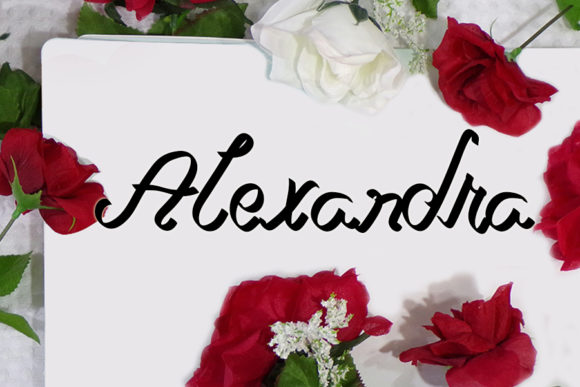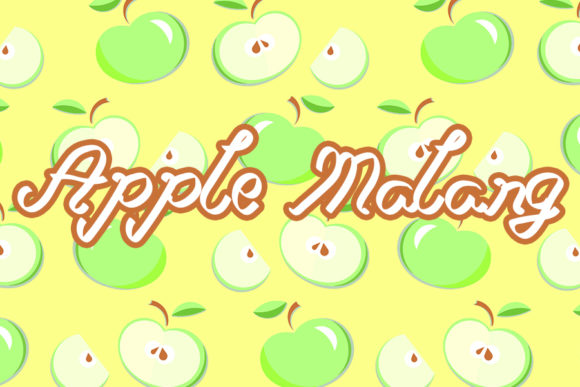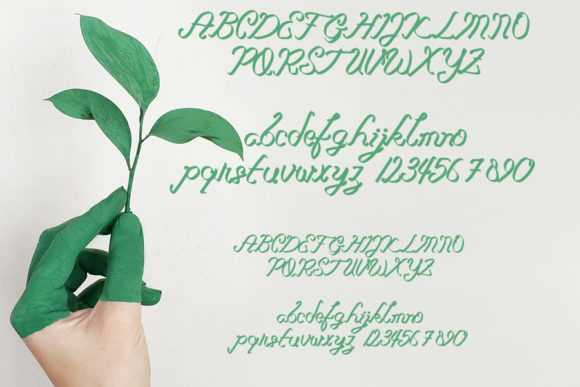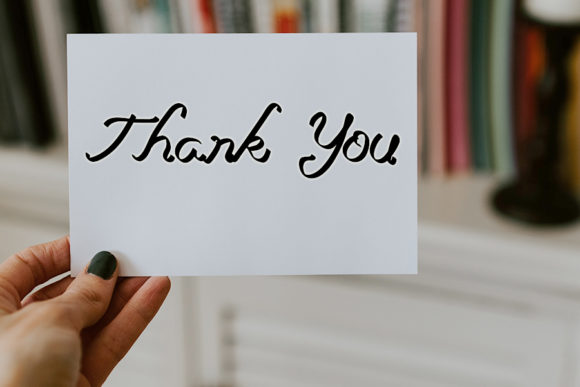
The Perfect Handwritten Touch
Have you ever sat down with a blank sheet of paper and a pen, watching as your handwriting flows effortlessly onto the page? That magical moment of creativity is what inspires us to find the perfect font to capture that feeling. For designers, finding the right font can make all the difference in bringing a design to life.
Enter the Bilqist Font, a flowing handwritten font that adds a touch of originality and cuteness to any design. Whether it’s a heartfelt thank you card or a logo that needs a personal touch, the Bilqist Font is the perfect solution. Its versatility makes it a valuable addition to any designer’s toolkit, and its unique style is sure to set your designs apart from the rest.
Bilqist Font Key Features
- Font Family: Bilqist comes in 4 font styles – Regular, Bold, Italic, and Bold Italic.
- Unique Characteristic: Bilqist features a unique blend of modern and traditional design elements, making it suitable for a wide range of applications, from digital signage to publishing.
Bilqist Font Review
I recently had the chance to work with the Bilqist Font, and I must say it’s an interesting addition to the world of typography. ✨ One of the things that works well is its unique, modern aesthetic. The font’s distinctive features and curves make it perfect for projects that require a touch of elegance and sophistication.
Another advantage of the Bilqist Font is its excellent legibility, even at smaller font sizes. This makes it an excellent choice for body text, as well as for headlines and titles. Additionally, the font is highly versatile and can be used for a wide range of applications, from print materials to digital interfaces.
- ⚠️ The Bilqist Font may not be the best choice for projects that require a lot of emphasis on readability, such as academic or technical documents. The font’s unique features can sometimes make it difficult to read at a glance.
- ⚠️ The font’s bold weight can look a bit too condensed, which may not be ideal for projects where a lot of emphasis is placed on clarity.
Overall, I would give the Bilqist Font 4 out of 5 stars. It’s a great choice for projects that require a touch of modernity and elegance, but may not be the best fit for every application. With a little bit of experimentation and adjustment, the Bilqist Font can be a valuable addition to any designer’s toolkit.
Getting the Most Out of Bilqist Font
To get the most out of the Bilqist Font, use it for:
1. Creative headings and titles.
2. Adding a touch of elegance to your designs.
3. Creating a consistent brand identity.
The Bilqist Font is commonly used for:
2. Luxury brand marketing materials.
3. High-end fashion and beauty branding.